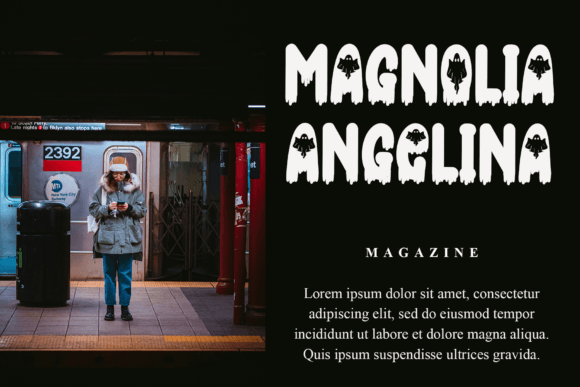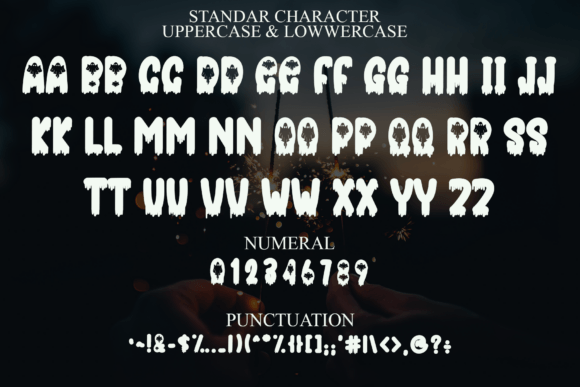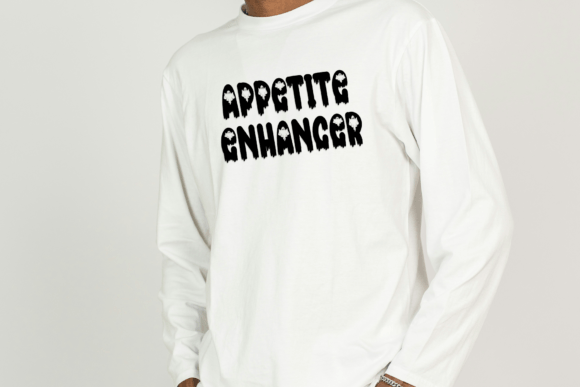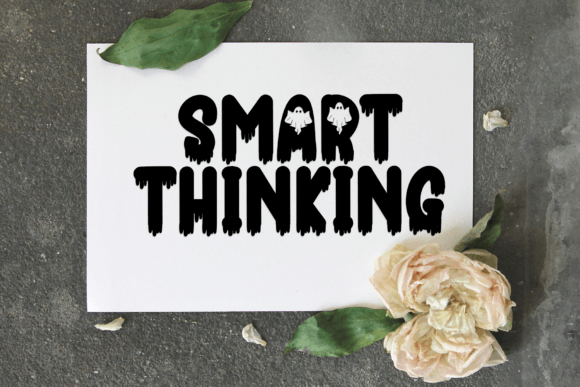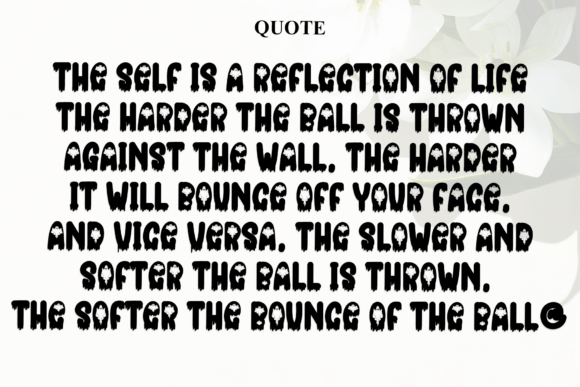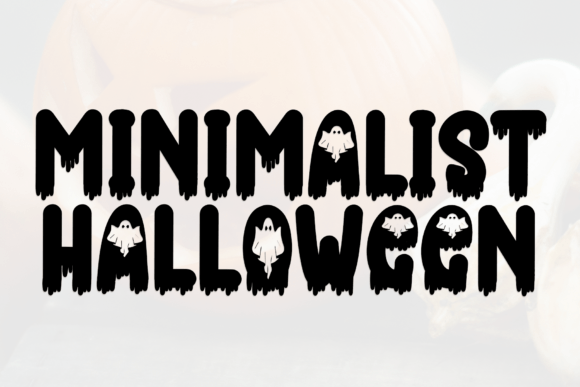
Cute Ghost Font: A Delightful Addition to Your Design Arsenal
Are you on the hunt for a font that adds a touch of whimsy and charm to your designs? Look no further than the Cute Ghost font, a handcrafted typeface that is sure to captivate your audience. In this article, we’ll dive into the world of Cute Ghost font, exploring its features, uses, and benefits for designers and crafters.
A Beautifully Crafted Font
Cute Ghost font is a very beautiful font, meticulously designed to meet the diverse needs of businesses and designers. Its smooth touch and beautiful strokes give it a natural feel, making it perfect for a wide range of applications. Whether you’re working on a logo design, banner, or social media graphic, this font is sure to elevate your work.
One of the standout features of Cute Ghost font is its versatility. It’s suitable for a variety of design projects, including:
- Banners: Create eye-catching banners that grab attention with Cute Ghost font.
- YouTube Thumbnails: Stand out on YouTube with custom thumbnails that showcase your brand’s personality.
- Logo Designs: Craft unique and memorable logos that reflect your brand’s values.
- Wedding Invitation Cards: Add a touch of elegance and whimsy to your wedding invitations.
- Clothing Mockups: Design stunning clothing mockups that showcase your brand’s style.
- T-Shirts: Create custom t-shirts that make a statement with Cute Ghost font.
Why Choose Cute Ghost Font?
So, what sets Cute Ghost font apart from other fonts? Here are just a few reasons why designers and crafters love this font:
- Unique and Eye-Catching: Cute Ghost font has a distinctive look that sets it apart from more traditional fonts.
- Highly Readable: Despite its whimsical nature, Cute Ghost font is highly readable, making it perfect for body text and headings.
- Customizable: With Cute Ghost font, you can experiment with different colors, sizes, and styles to create a look that’s uniquely yours.
Tips for Using Cute Ghost Font
To get the most out of Cute Ghost font, here are a few tips to keep in mind:
- Pair it with Other Fonts: Experiment with pairing Cute Ghost font with other fonts to create a unique look.
- Use it for Headings: Cute Ghost font is perfect for headings and titles, where its whimsical nature can shine.
- Experiment with Colors: Try out different colors and gradients to add depth and interest to your designs.
In conclusion, Cute Ghost font is a delightful addition to any designer’s arsenal. Its unique blend of whimsy and charm makes it perfect for a wide range of applications, from banners and logos to wedding invitations and clothing mockups. With its high readability, customizability, and versatility, Cute Ghost font is sure to become a favorite among designers and crafters. So why not give it a try and see how it can elevate your designs?